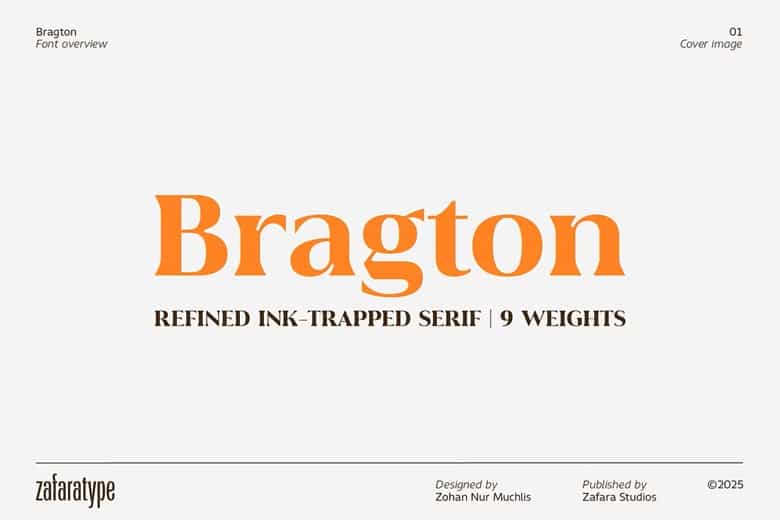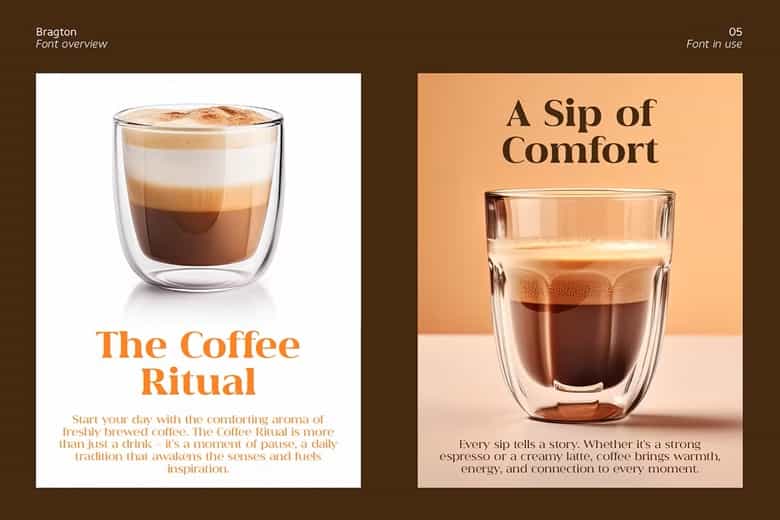
Bragton emerges as a modern serif typeface which displays delicate ink traps to achieve elegant permanence and operational usefulness in current design projects. A total of nine weights starting from Thin up to Black and including ExtraLight, Light, Regular, Medium, SemiBold, Bold, ExtraBold provides design flexibility suitable for branding, editorial work and packaging and digital media development.